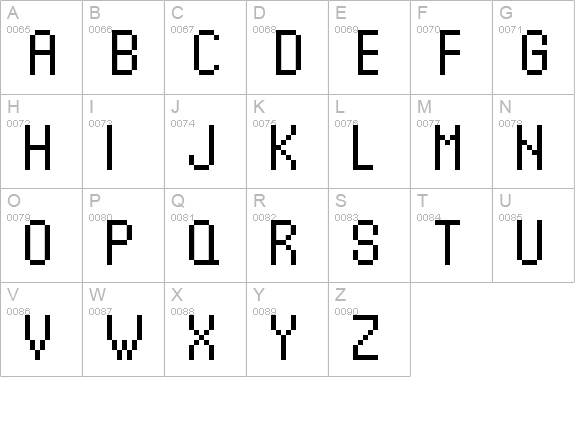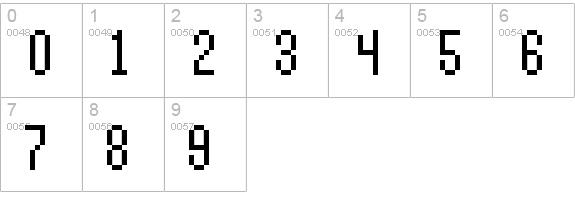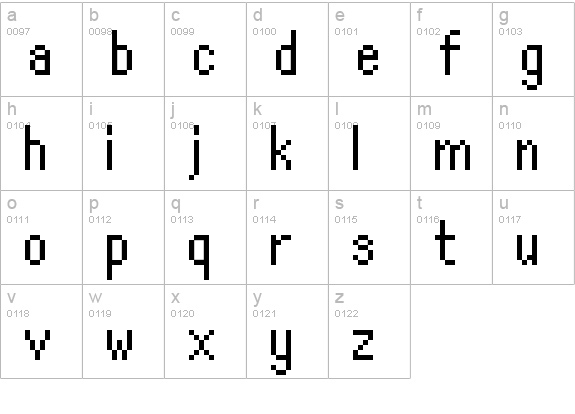
kharon4a_mini Font Details
Introducing kharon4a_mini, a visually stunning font that combines elegance with modernity. This versatile typeface is perfect for all your creative projects, whether it be designing logos, creating eye-catching headlines, or crafting beautiful invitations. With its clean lines and unique character shapes, kharon4a_mini brings a touch of sophistication to any design. Its sleek and timeless appearance makes it suitable for both digital and print mediums, ensuring that your work stands out from the crowd. One of the best things about kharon4a_mini is that it is absolutely free! Yes, you heard that right. This exceptional font can be freely downloaded at FontsMarket.com, the go-to destination for typography enthusiasts. Now you can add a touch of professionalism to your projects without breaking the bank. With kharon4a_mini, the possibilities are endless. Whether you're a seasoned designer or just starting out, this font will help you bring your creative vision to life. Its extensive character set includes a wide range of glyphs, making it suitable for multiple languages and ensuring that you have all the tools you need to create stunning designs. Don't miss out on this incredible opportunity to enhance your design arsenal. Download kharon4a_mini today and take your projects to new heights. Experience the beauty and versatility of this font, and watch as your designs captivate and inspire. Remember, it's free and waiting for you at FontsMarket.com!